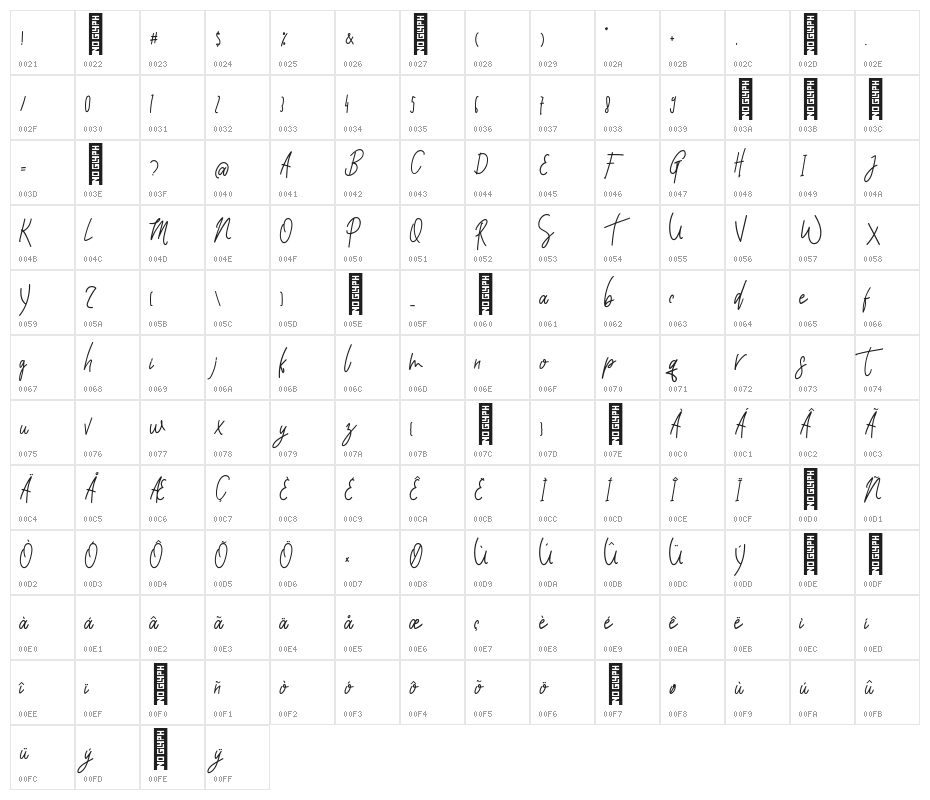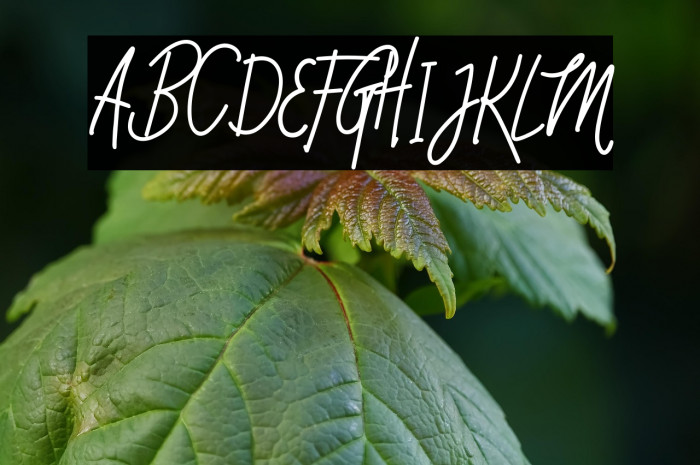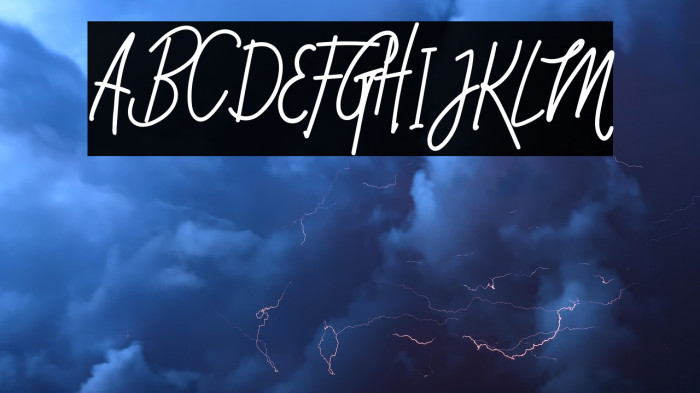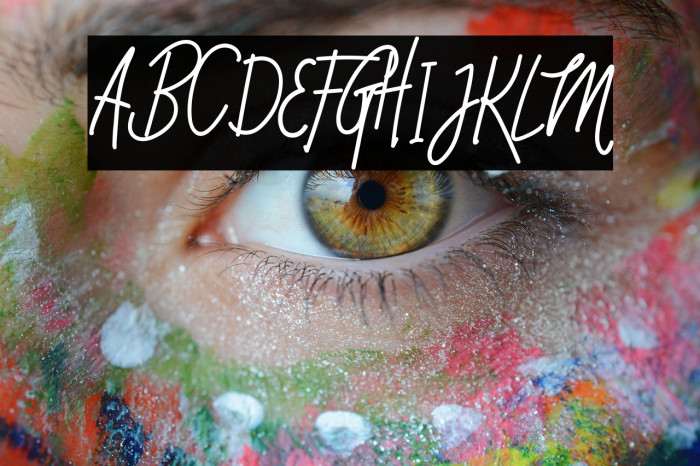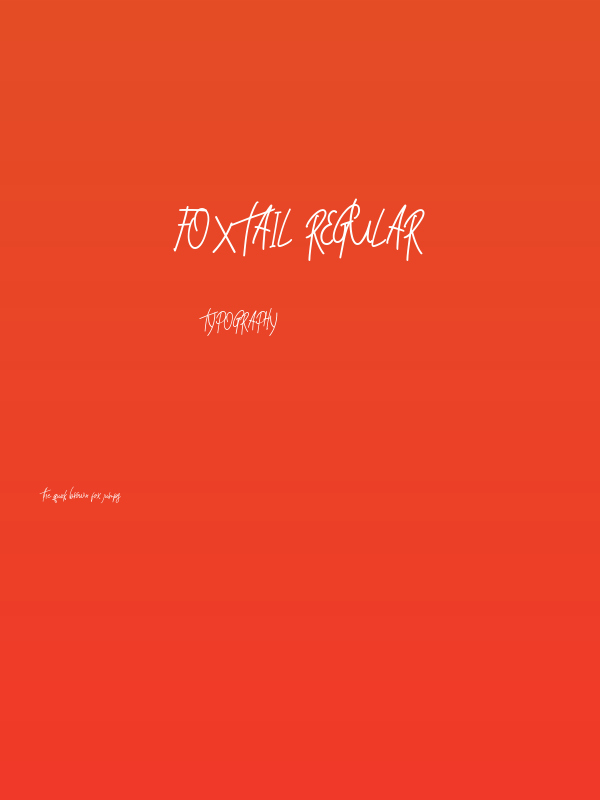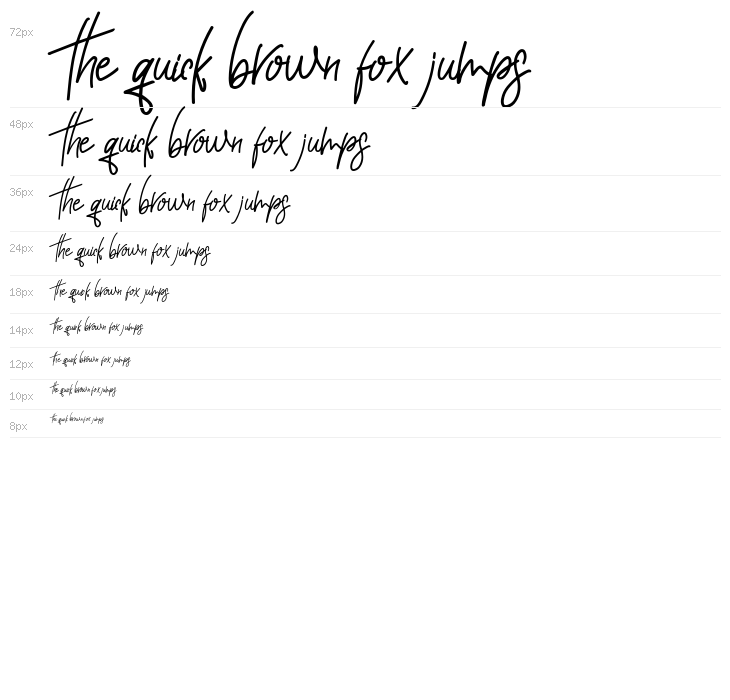
Foxtail Regular Font
Foxtail Regular Description
This font features a dynamic and flowing script style, characterized by its elegant and fluid strokes. The uppercase letters exhibit a graceful, cursive form with a slight slant, while the lowercase letters maintain a consistent, handwritten appearance. The numerals are distinct and maintain the same fluidity as the letters, ensuring readability. Special characters are creatively integrated, adding to the font's overall artistic appeal. This font is ideal for projects that require a personal touch, such as invitations, greeting cards, and creative branding.
| Use Case | Logos, Headlines, Creative projects |
| Proposed Projects | Ideal for invitations, greeting cards, and creative branding projects. |